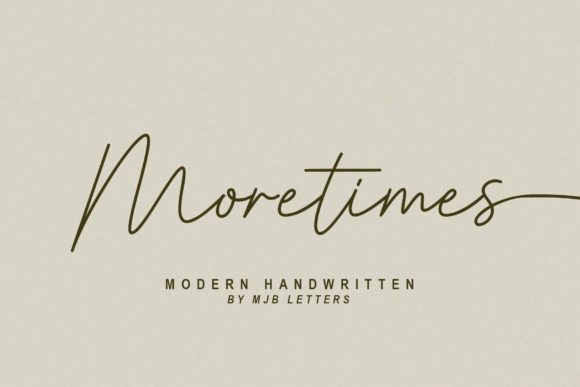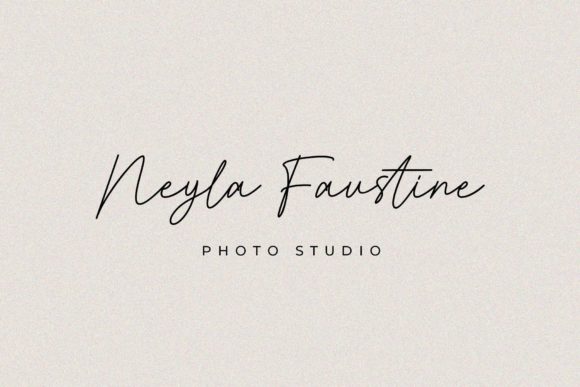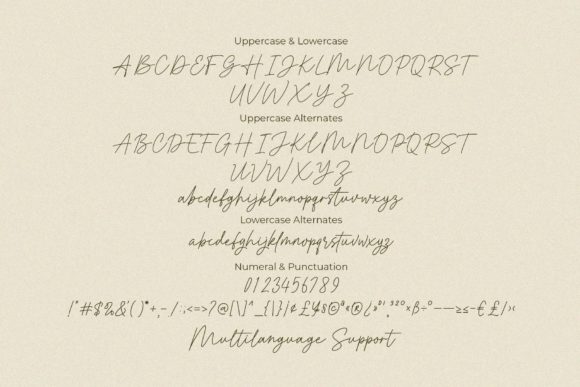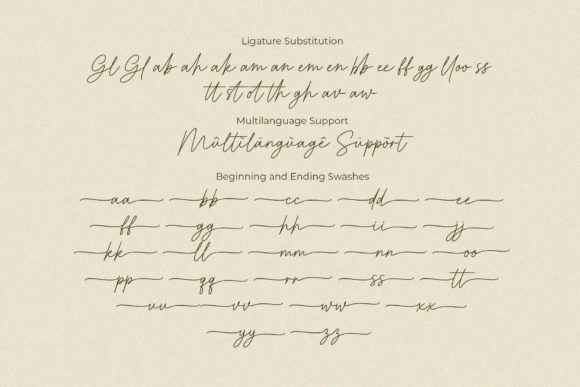
About Moretimes Font
Moretimes is a modern and clean handwritten font featuring an elegant and natural flow. Each uppercase and lowercase letter has an alternative – this gives you more options to customize the design as you like. This font is perfect for logo design, quotes, wedding invites, branding, signature, watermark, fashion, and more. This font is PUA encoded, which means you can access all of the glyphs and swashes with ease!